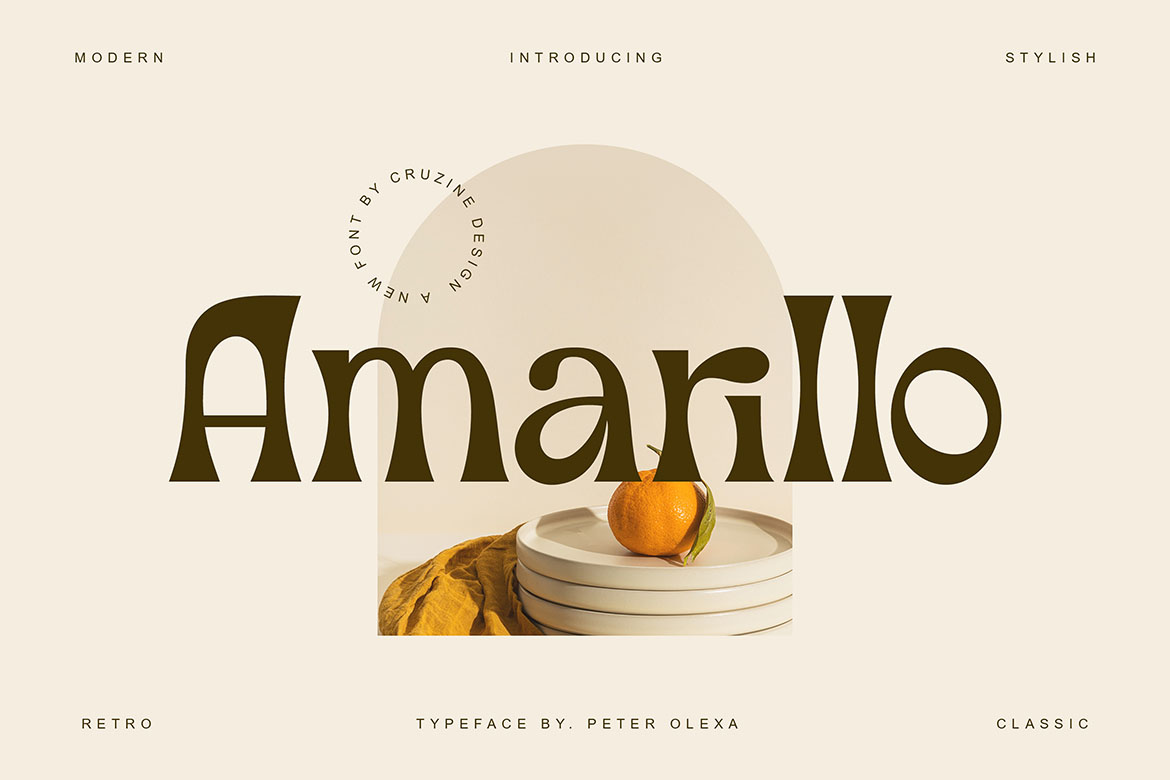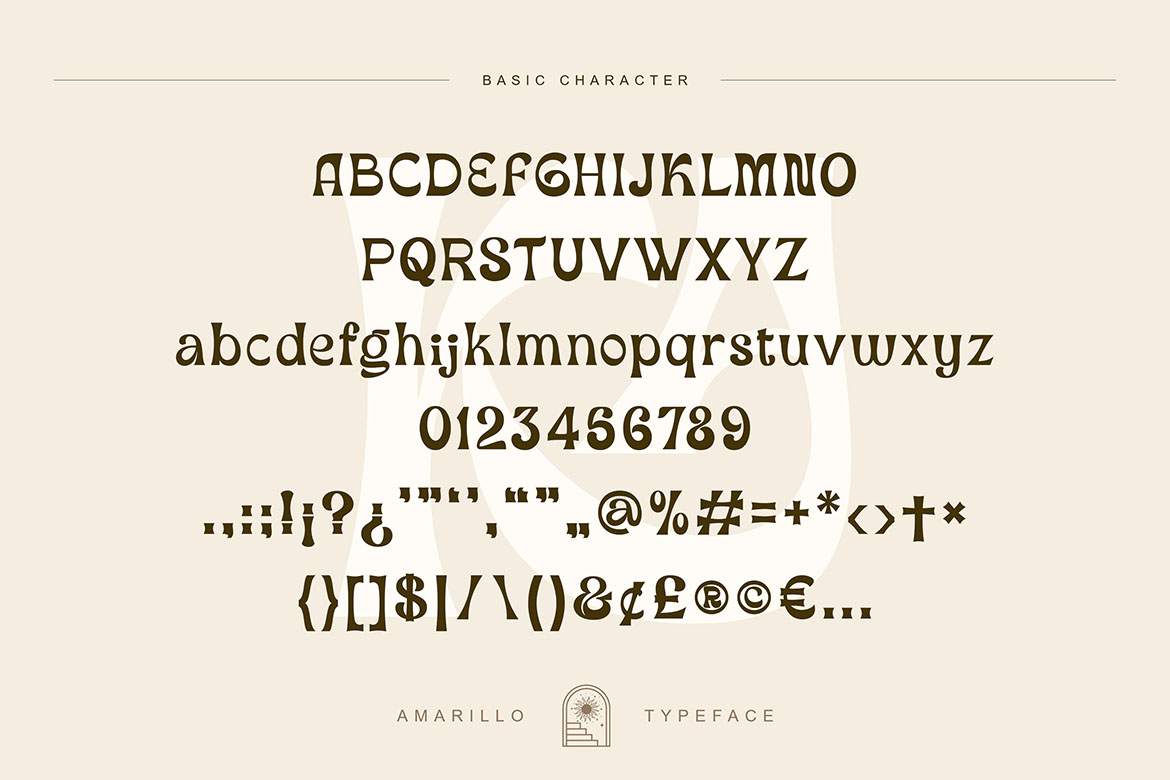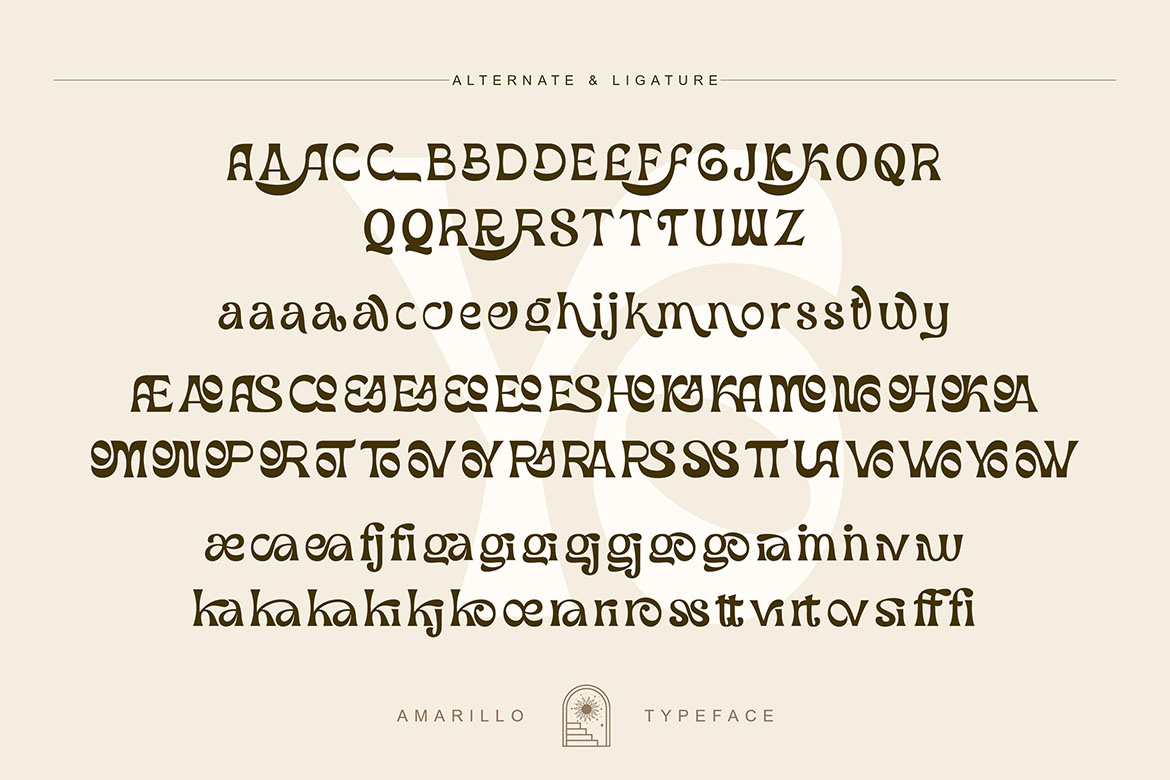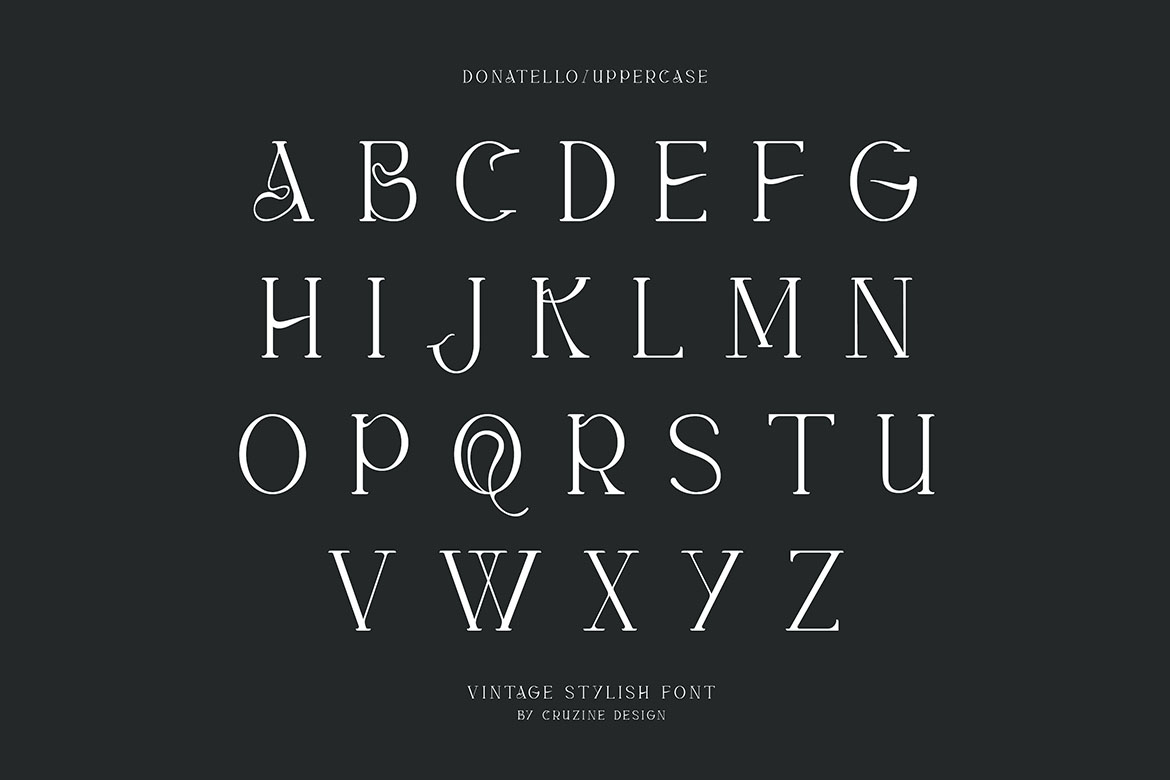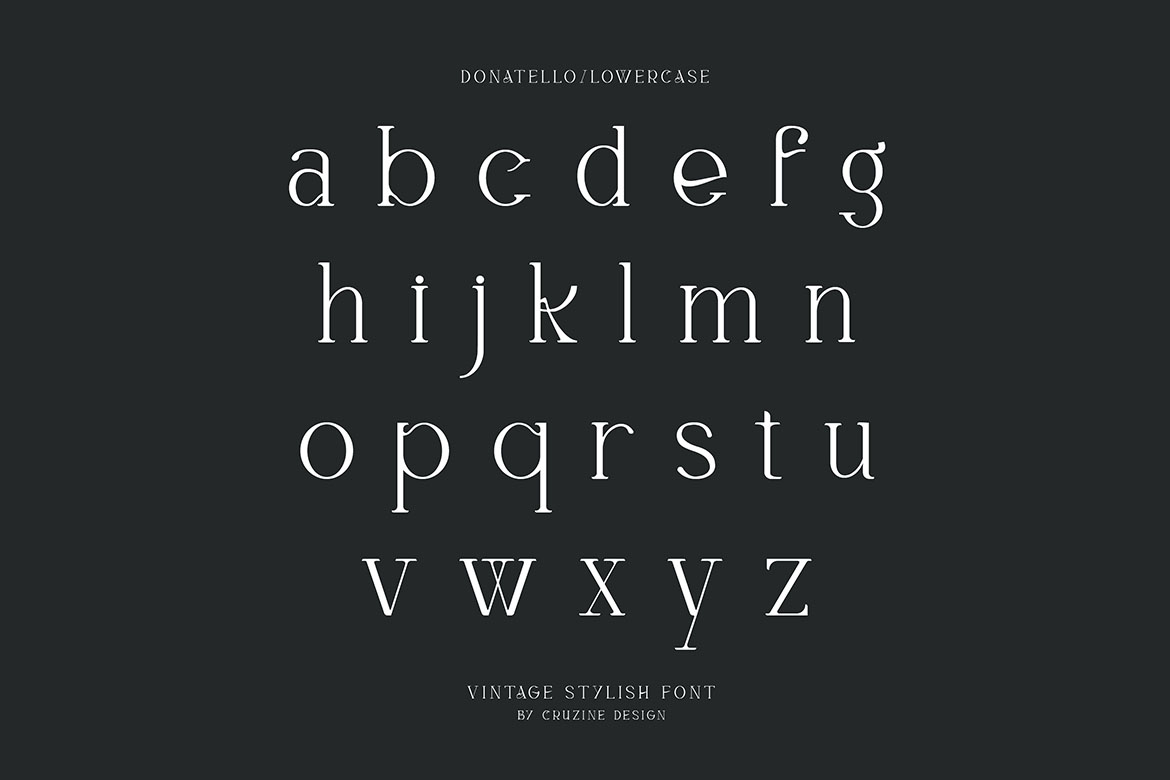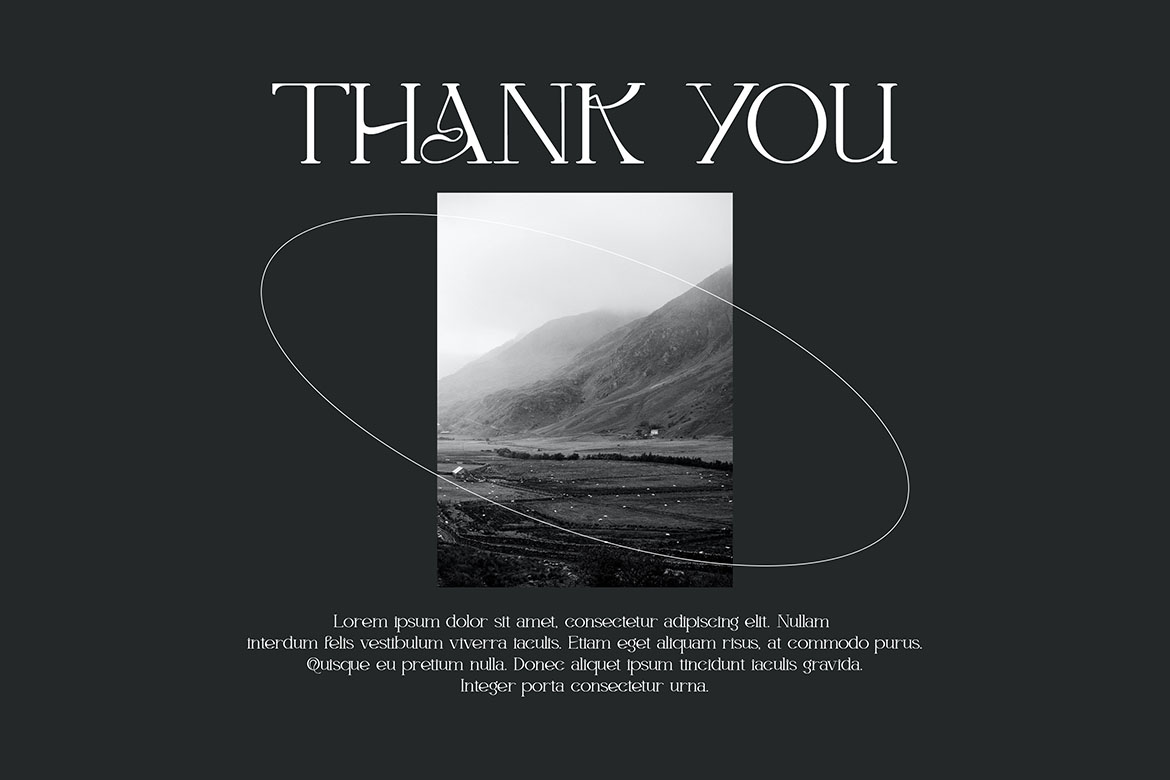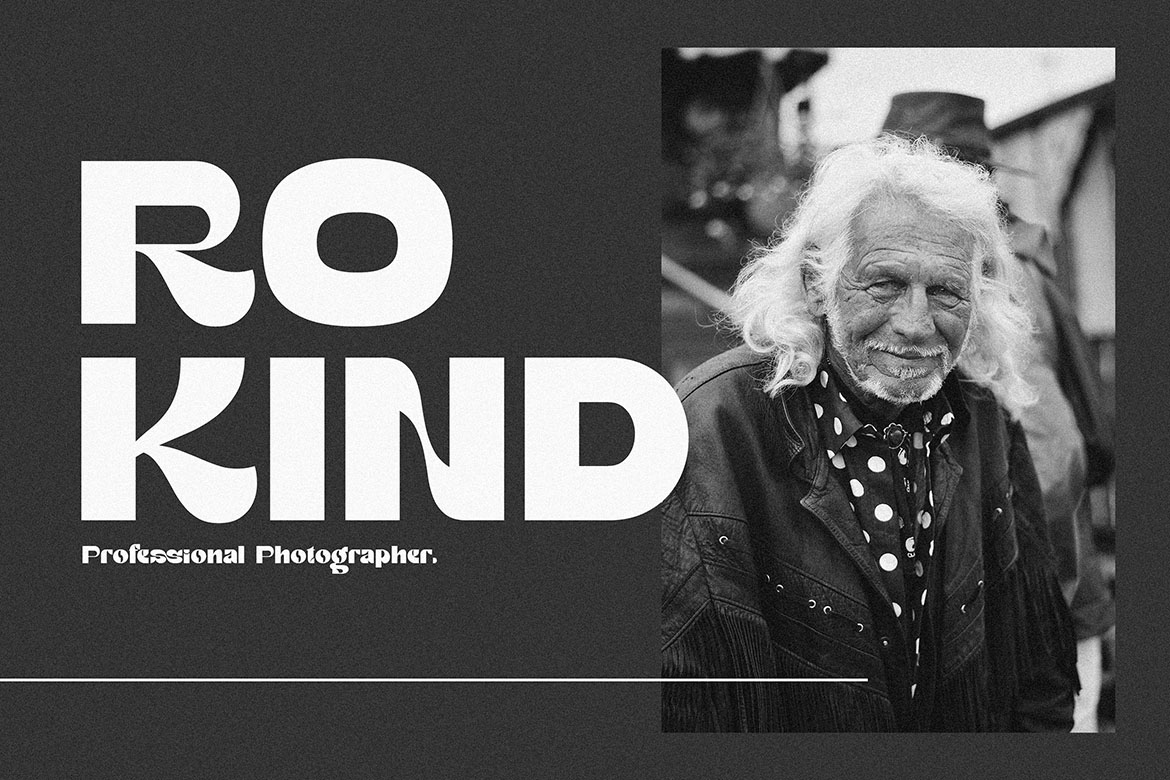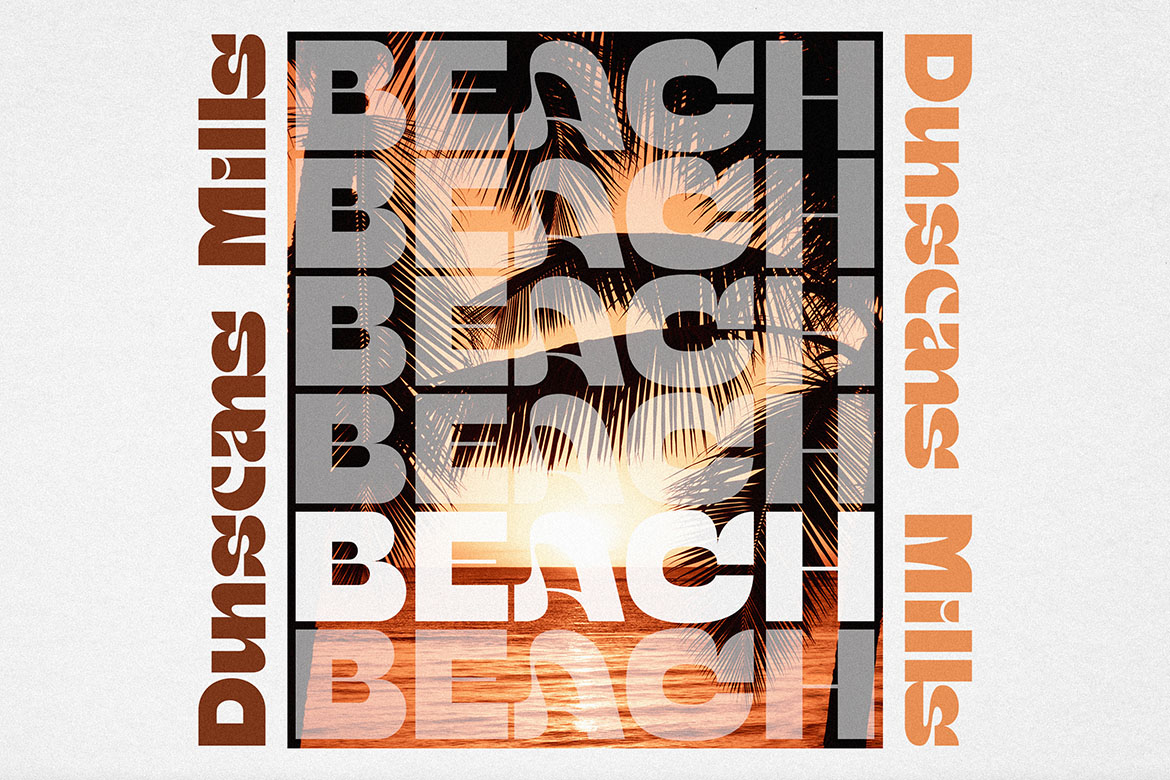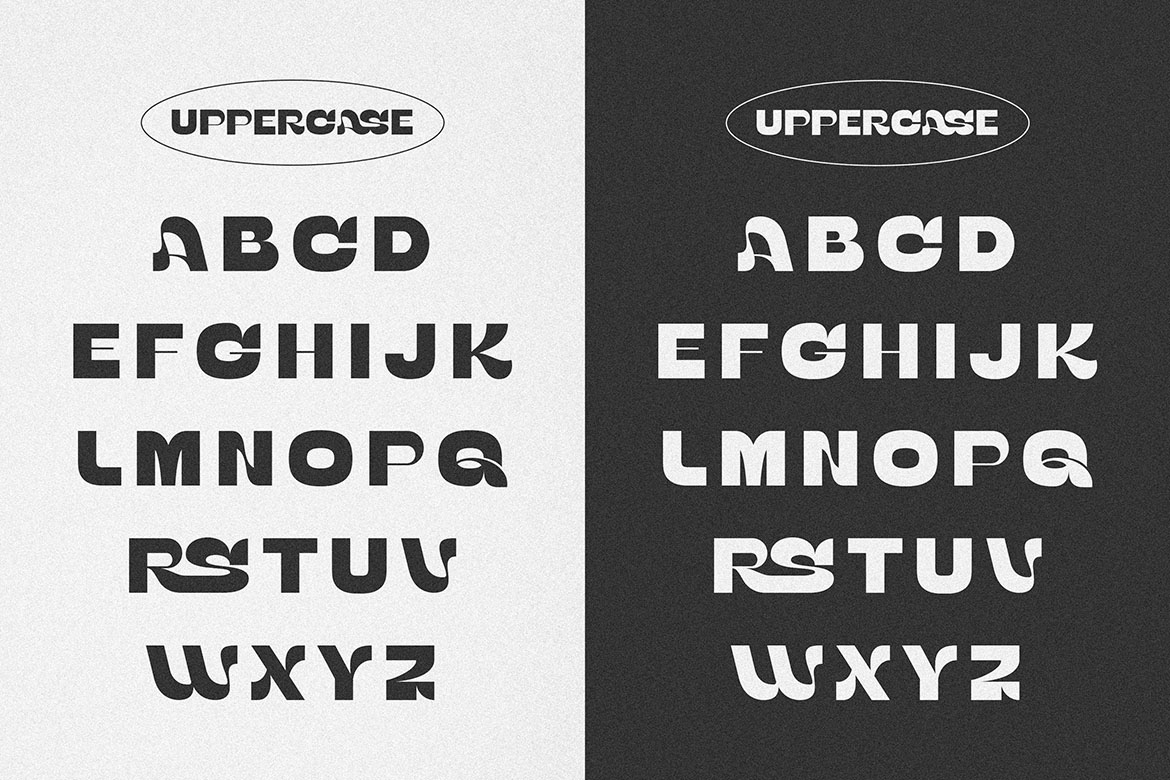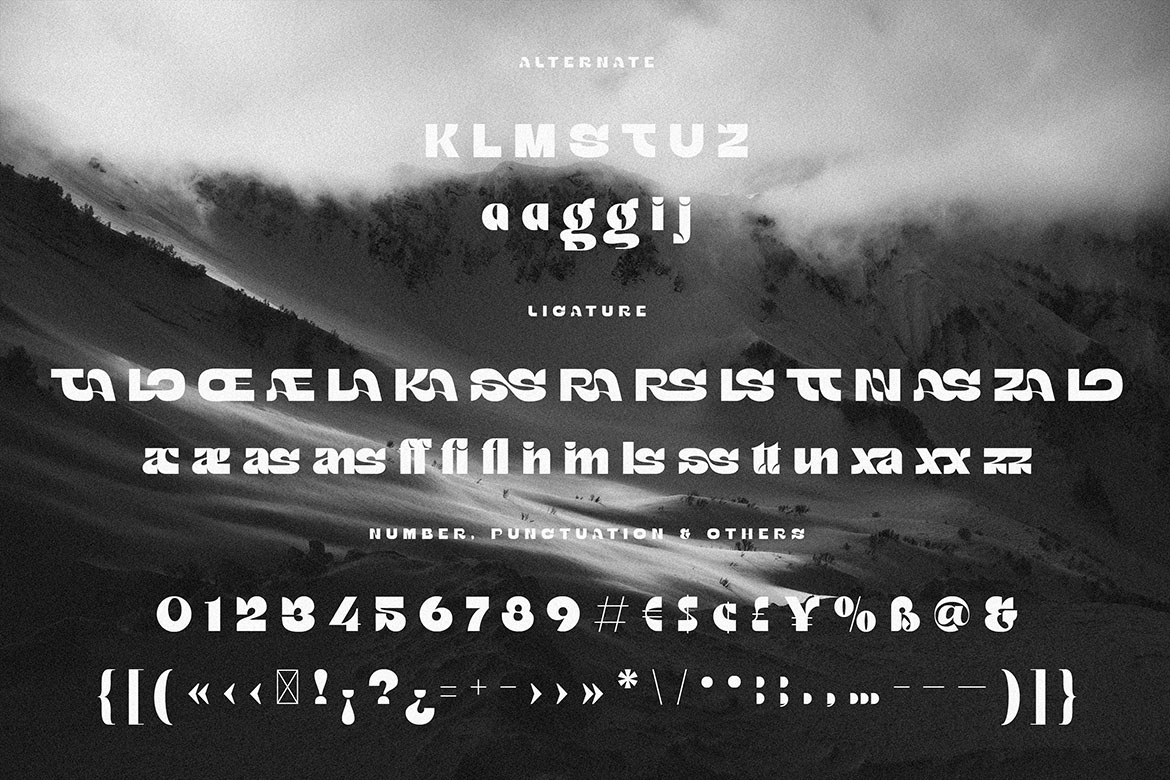
60 Trendy & Modern Fonts
Brand new unique & creative style typography bundle with 60 multilingual display font sets! All these fonts are trendy, luxury, classy & elegant so you can use it for any kind of modern or artistic style branding projects or T-shirt designs 😉
60 Trendy & Modern Fonts from Cruzine Design contains 60 fancy, modern, elegant & decorative display fonts for your new projects! Don’t miss this BIG & creative style font & branding bundle 😉
• 60 trendy & decorative display fonts for your new projects!
• 6 font bundles in 1 BIG megabundle!
• Great for any branding projects, posters or T-shirt designs…
• Multilingual support, stylistic alternates & ligatures
60 creative display fonts for your new projects!
Trendy, elegant, luxury, futuristic & retro style serif & sans display fonts for your fancy projects. Elegant, artistic and unique style on these fonts will be great for any branding project. Lot of alternates and ligatures will help you to create unique and original logo design or website header! Enjoy 🙂
• Multilingual support
• Lot of alternate characters
• Lot of ligatures
• Great for modern branding projects!
1. Trendy & Modern Fonts 1
01. Granbury – Modern Bold Sans from Cruzine Design
Trendy or modern style sans font for your fancy projects. Bold, elegant and retro style on Granbury font will be great for any branding project. Lot of alternates and ligatures will help you to create unique and original logo design or website header! Enjoy 🙂
• 2 styles: Regular & Italic
• Multilingual support
• Lot of alternate characters
• Lot of ligatures
• Great for modern branding projects!
02. Amarillo – Modern Sans Font from Cruzine Design
Trendy, bold & modern style sans font for your fancy projects. Elegant, funny and classic style on Amarillo font will be great for any branding project. Lot of alternates and ligatures will help you to create unique and original logo design or website header! Enjoy 🙂
• 3 styles: Regular & Italic & Outline
• Multilingual support
• Lot of alternate characters
• Lot of ligatures
• Great for modern branding projects!
03. The Rivers – Modern Sans Font from Cruzine Design
Trendy or modern style sans font for your fancy projects. Elegant, thin and fashion style on The Rivers font will be great for any branding project. Lot of alternates and ligatures will help you to create unique and original logo design or website header! Enjoy 🙂
• 2 styles: Regular & Italic
• Multilingual support
• Lot of alternate characters
• Lot of ligatures
• Great for modern branding projects!
04. Dunsmuir – Modern Serif Font from Cruzine Design
Trendy, bold & modern style serif font for your fancy projects. Elegant and classic style on Dunsmuir font will be great for any branding project. Lot of alternates and ligatures will help you to create unique and original logo design or website header! Enjoy 🙂
• 2 styles: Regular & Italic
• Multilingual support
• Lot of alternate characters
• Lot of ligatures
• Great for modern branding projects!
05. Grapevine – Modern Serif Font from Cruzine Design
Trendy or modern style serif font for your fancy projects. Elegant and classic style on Grapevine font will be great for any branding project. Lot of alternates and ligatures will help you to create unique and original logo design or website header! Enjoy 🙂
• 2 styles: Regular & Italic
• Multilingual support
• Lot of alternate characters
• Lot of ligatures
• Great for modern branding projects!
06. Dunscans Mills – Modern Bold Sans from Cruzine Design
Trendy or modern style sans font for your fancy projects. Bold, elegant and retro style on Dunscans Mills font will be great for any branding project. Lot of alternates and ligatures will help you to create unique and original logo design or website header! Enjoy 🙂
• 2 styles: Regular & Italic
• Multilingual support
• Lot of alternate characters
• Lot of ligatures
• Great for modern branding projects!
07. Gatlinburg – Modern Serif Font from Cruzine Design
Trendy or modern style serif font for your fancy projects. Elegant and classic style on Gatlinburg font will be great for any branding project. Lot of alternates and ligatures will help you to create unique and original logo design or website header! Enjoy 🙂
• 2 styles: Regular & Italic
• Multilingual support
• Lot of alternate characters
• Lot of ligatures
• Great for modern branding projects!
08. Luckenbach – Modern Serif Font from Cruzine Design
Trendy, bold & modern style serif font for your fancy projects. Elegant, luxury and classic style on Luckenbach font will be great for any branding project. Lot of ligatures will help you to create unique and original logo design or website header! Enjoy 🙂